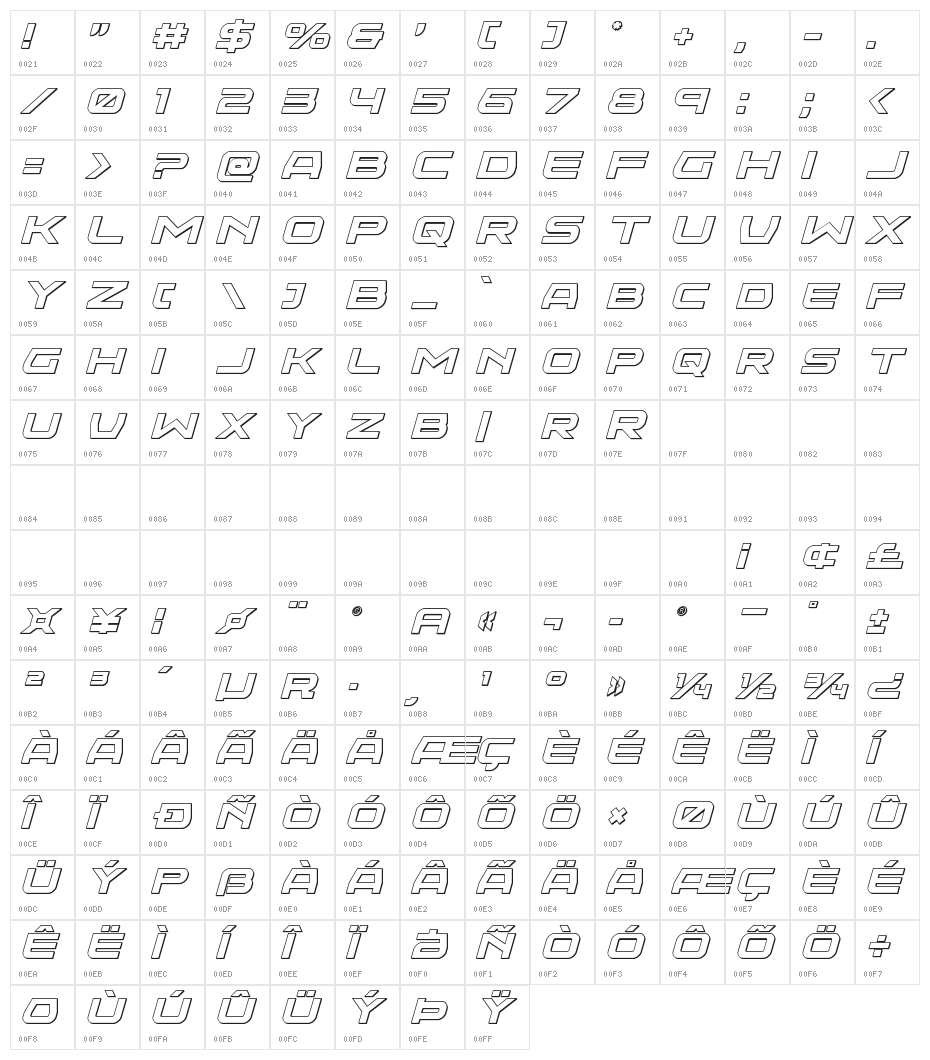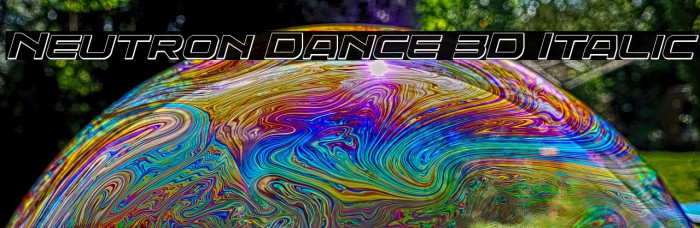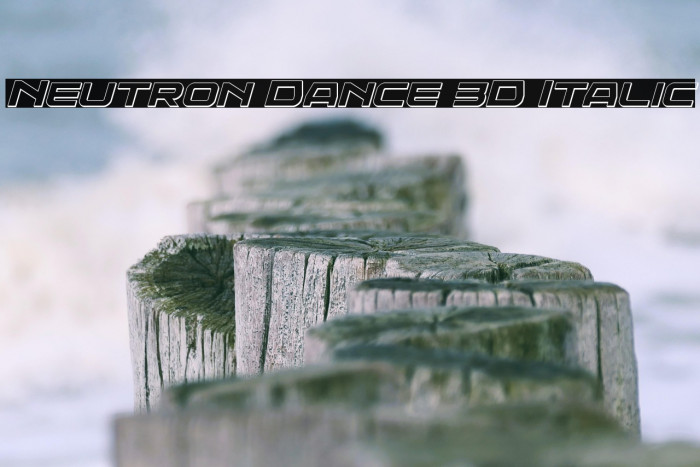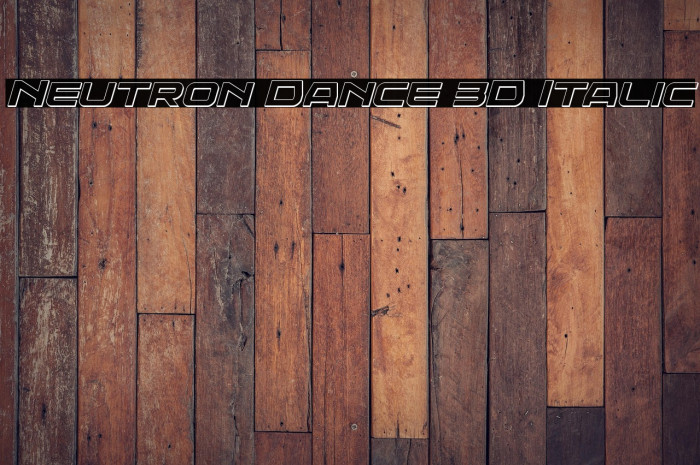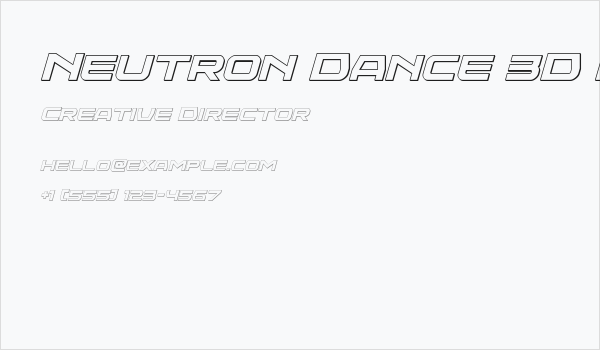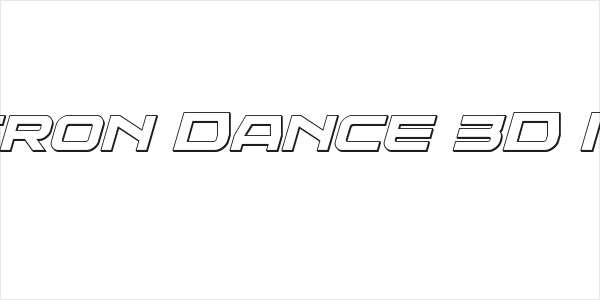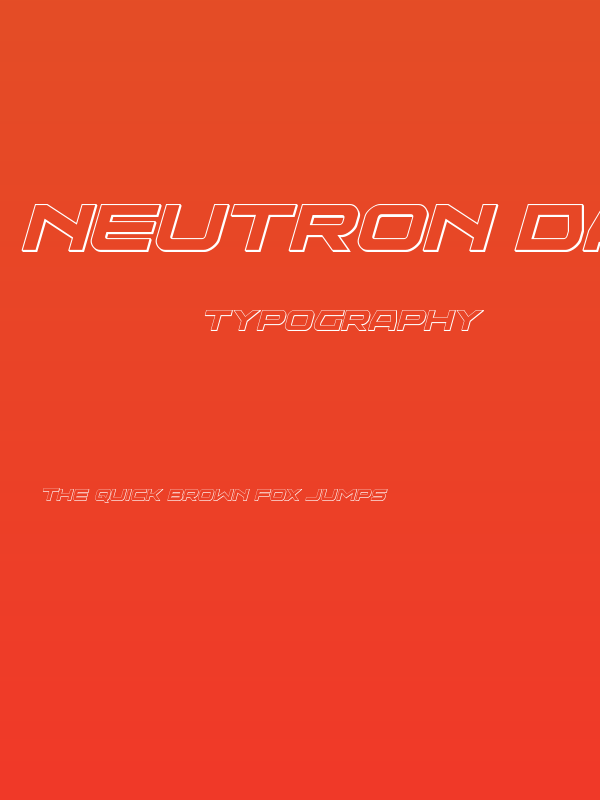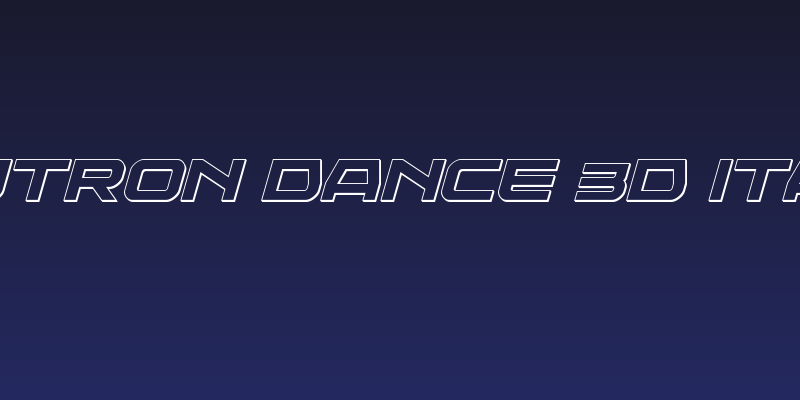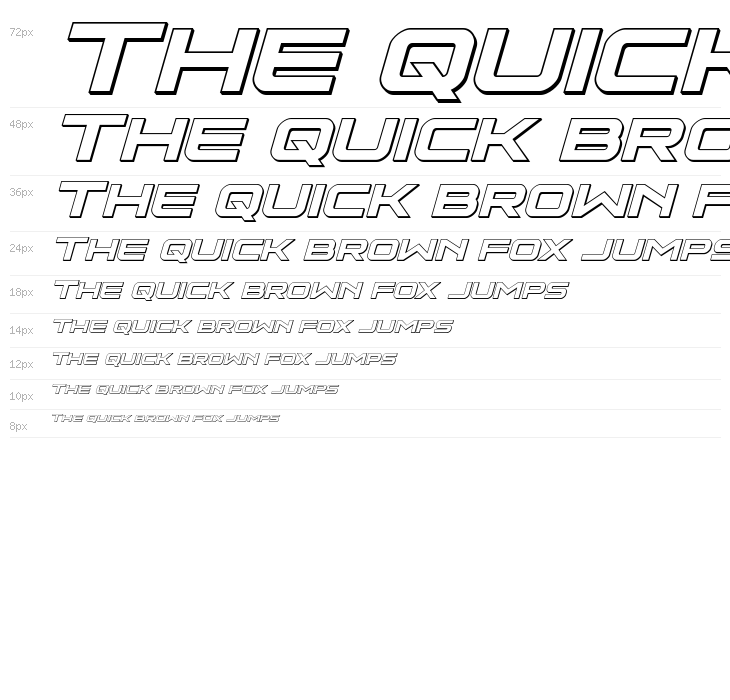
Neutron Dance 3D Italic Font
Neutron Dance 3D Italic Description
This font features a dynamic and futuristic 3D italic style, characterized by its bold, angular lines and geometric shapes. The letters are outlined, giving a sense of depth and movement, which is enhanced by the italic slant. The design is clean and modern, with a distinct technological feel, making it suitable for projects that require a contemporary and innovative look. The characters are evenly spaced, ensuring readability while maintaining a unique aesthetic. Its structured form and sharp edges contribute to a striking visual impact, ideal for making a bold statement.
Proposed ProjectsIdeal for tech branding, video game titles, futuristic posters, and sci-fi themed projects.